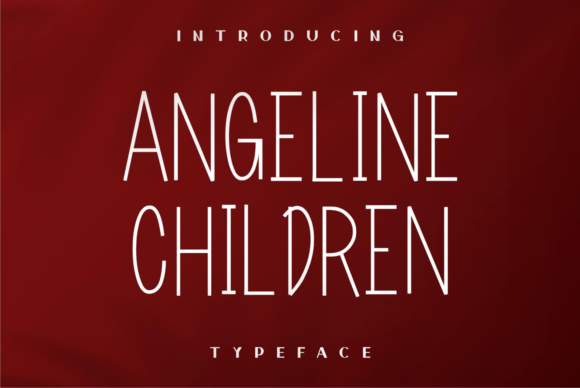
The Ultimate Guide to Angeline Children Font: Elevate Your Designs with a Cool and Trendy Sans Serif
Have you ever been in the middle of a design project, and suddenly, you’re stuck on finding the perfect font? I recall a recent experience where I was working on a logo design for a children’s clothing brand. The client wanted something fun, modern, and eye-catching. After hours of browsing through font libraries, I stumbled upon Angeline Children Font. It was love at first sight! 😍
An Honest Review of Angeline Children Font
What I Love About Angeline Children Font ✨
- ✅ Unique and Trendy Design: Angeline Children Font boasts a cool and trendy sans serif design that instantly grabs attention.
- ✅ Versatility: This font is perfect for various projects, including logos, badges, clothing, posters, and more.
- ✅ Easy to Read: The font’s clean and simple design makes it easy to read, even at smaller sizes.
- ✅ Highly Customizable: With OpenType features and glyphs, you can experiment with different styles and alternates to match your design needs.
While Angeline Children Font is an excellent choice, there are a few minor limitations to consider:
- 🤔 Limited Language Support: This font might not support all languages, so be sure to check the character set before using it for a specific project.
- 🤔 Not Suitable for Body Text: Due to its trendy and decorative nature, Angeline Children Font might not be the best choice for lengthy body text.
The Backstory Behind Angeline Children Font
Angeline Children Font was designed with the intention of creating a fun, modern sans serif font that would appeal to designers and crafters. The font’s creator aimed to craft a unique and trendy design that would stand out from the crowd. Although the exact backstory is unknown, it’s clear that Angeline Children Font has been designed with creativity and versatility in mind.
Q: What is Angeline Children Font?
Angeline Children Font is a cool and trendy sans serif font perfect for logos, badges, clothing, posters, and other creative projects.